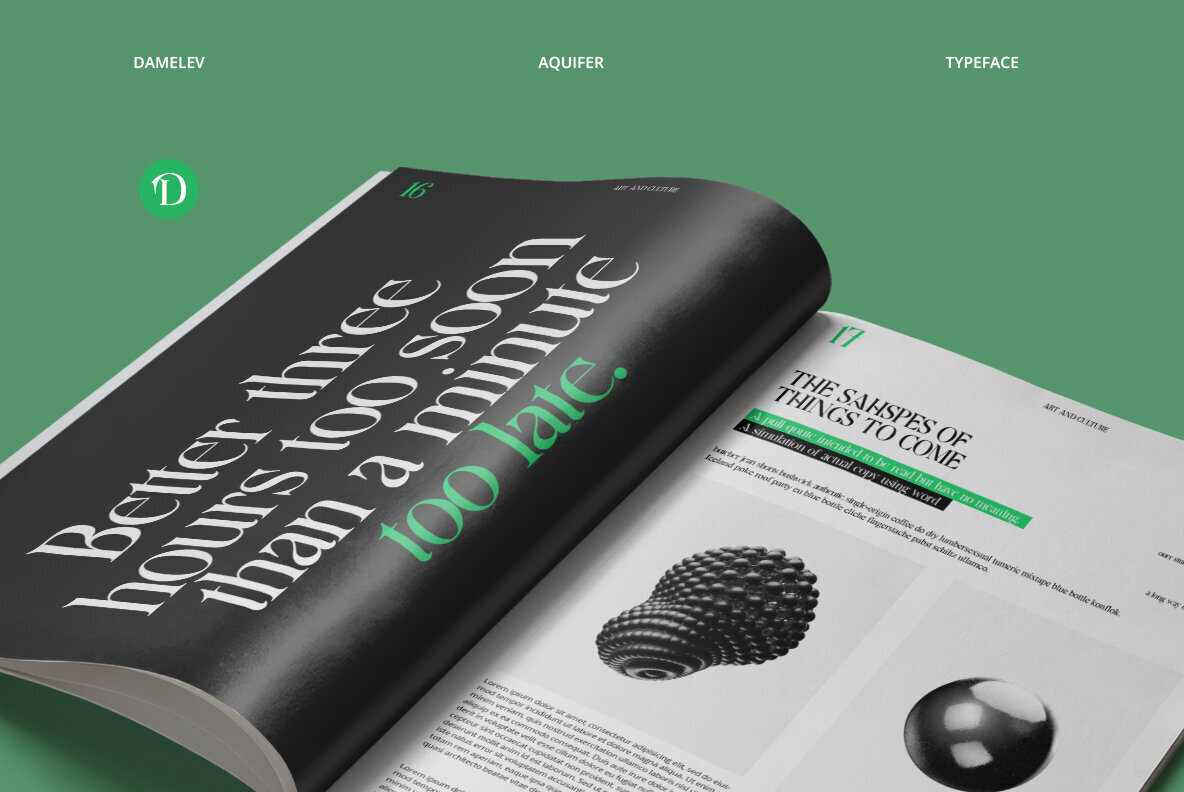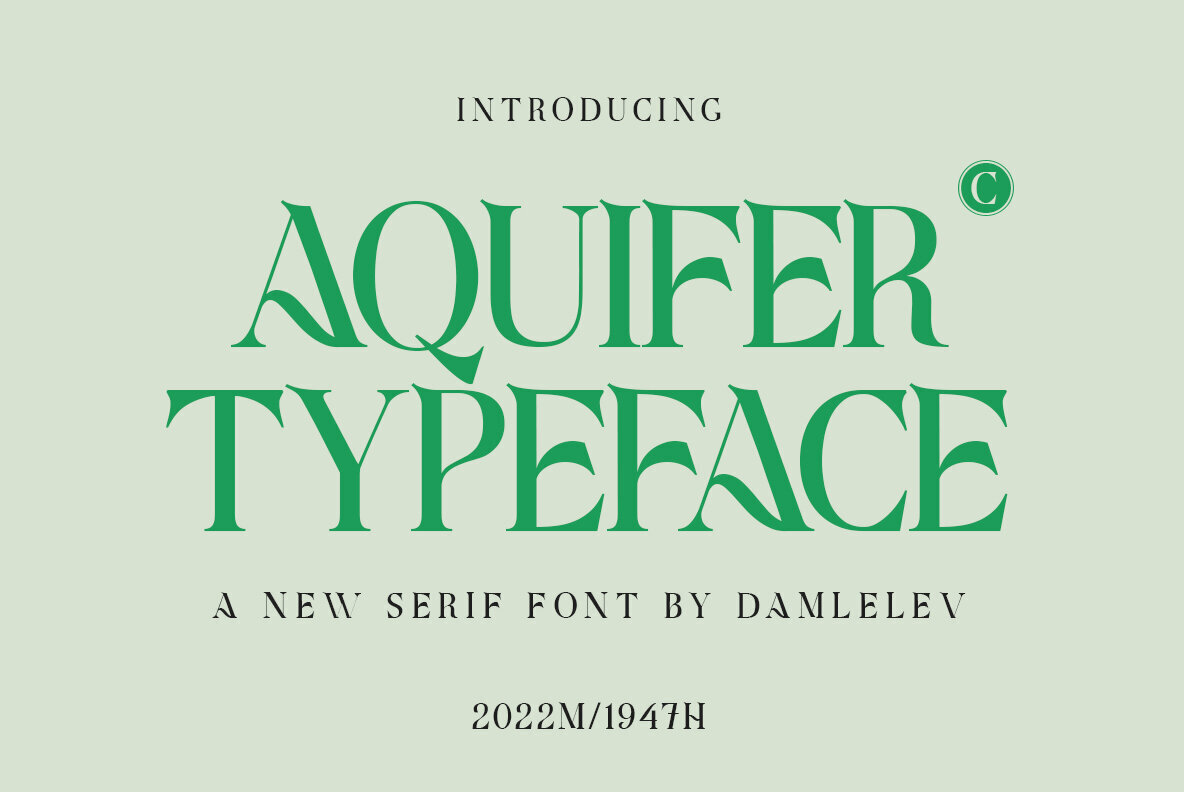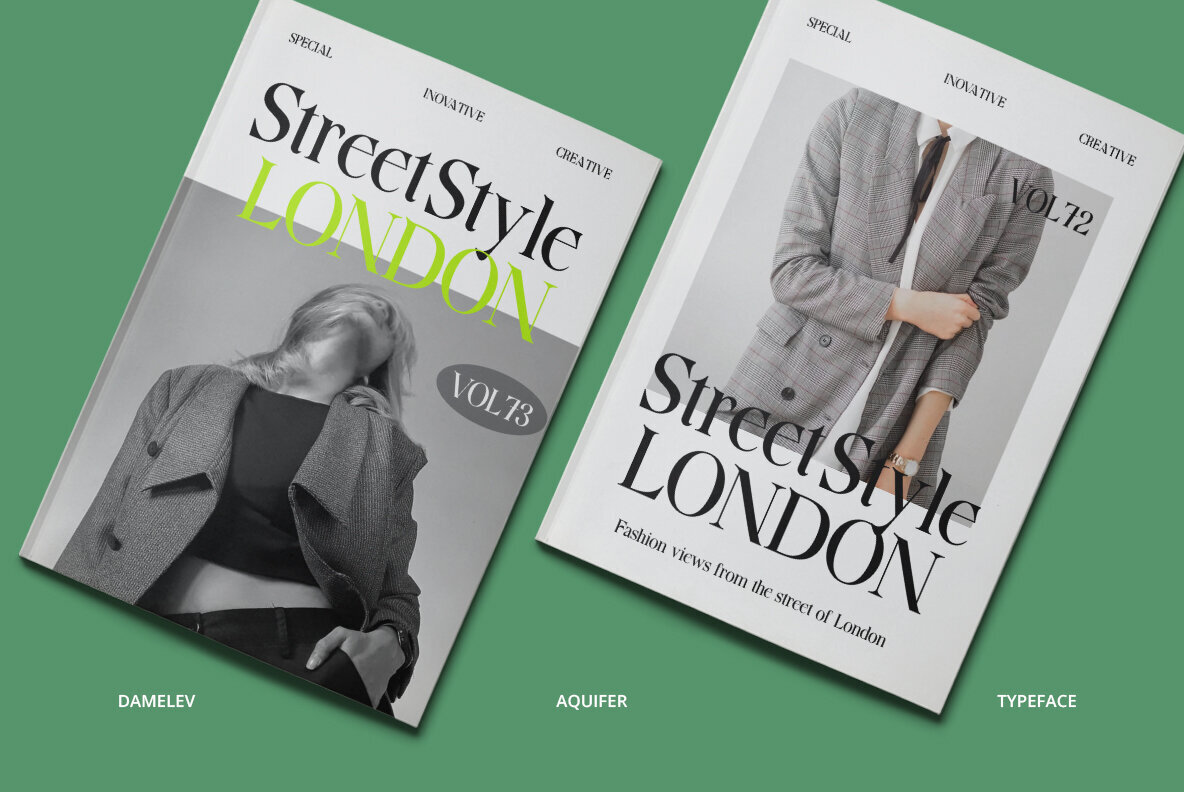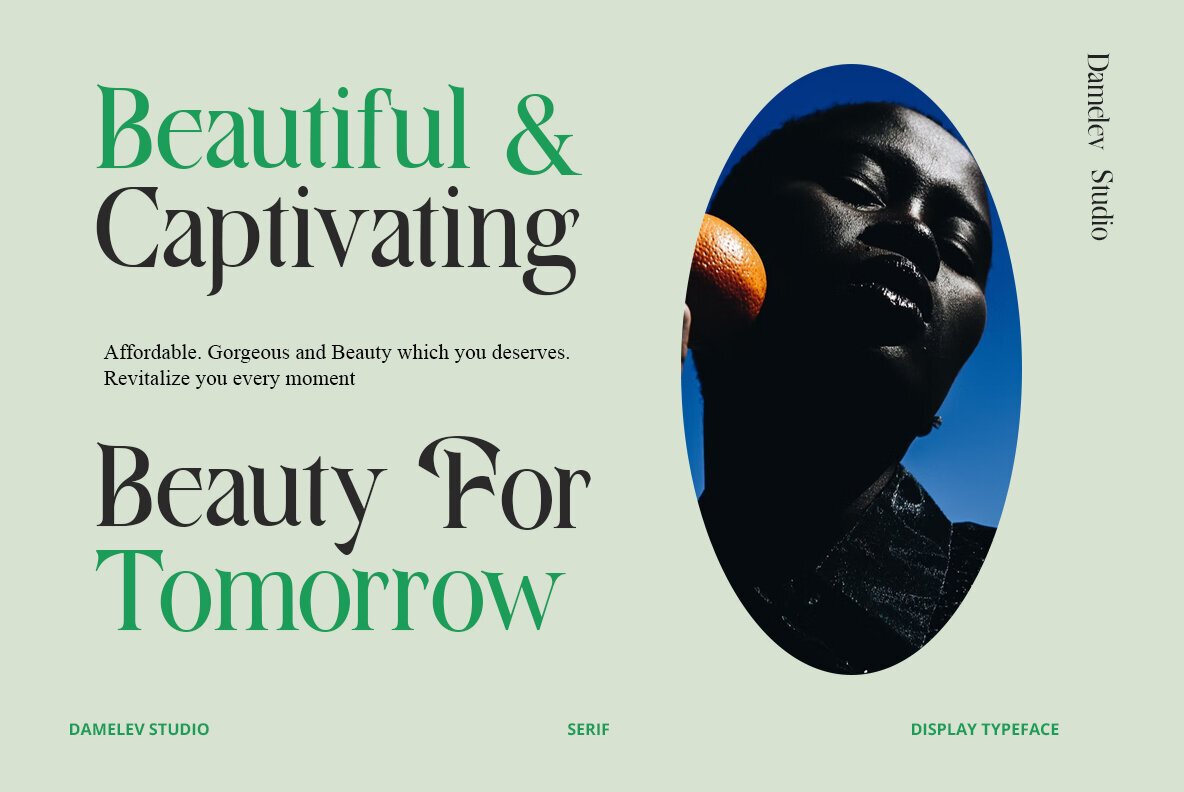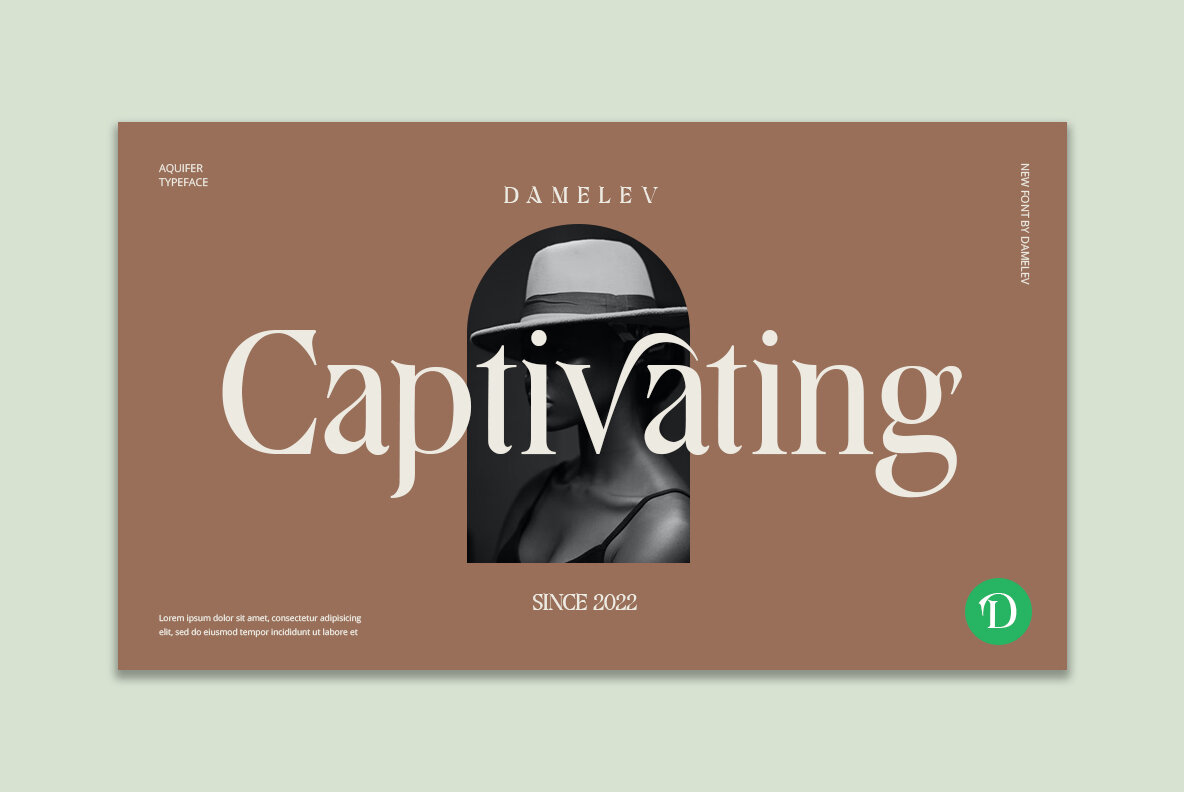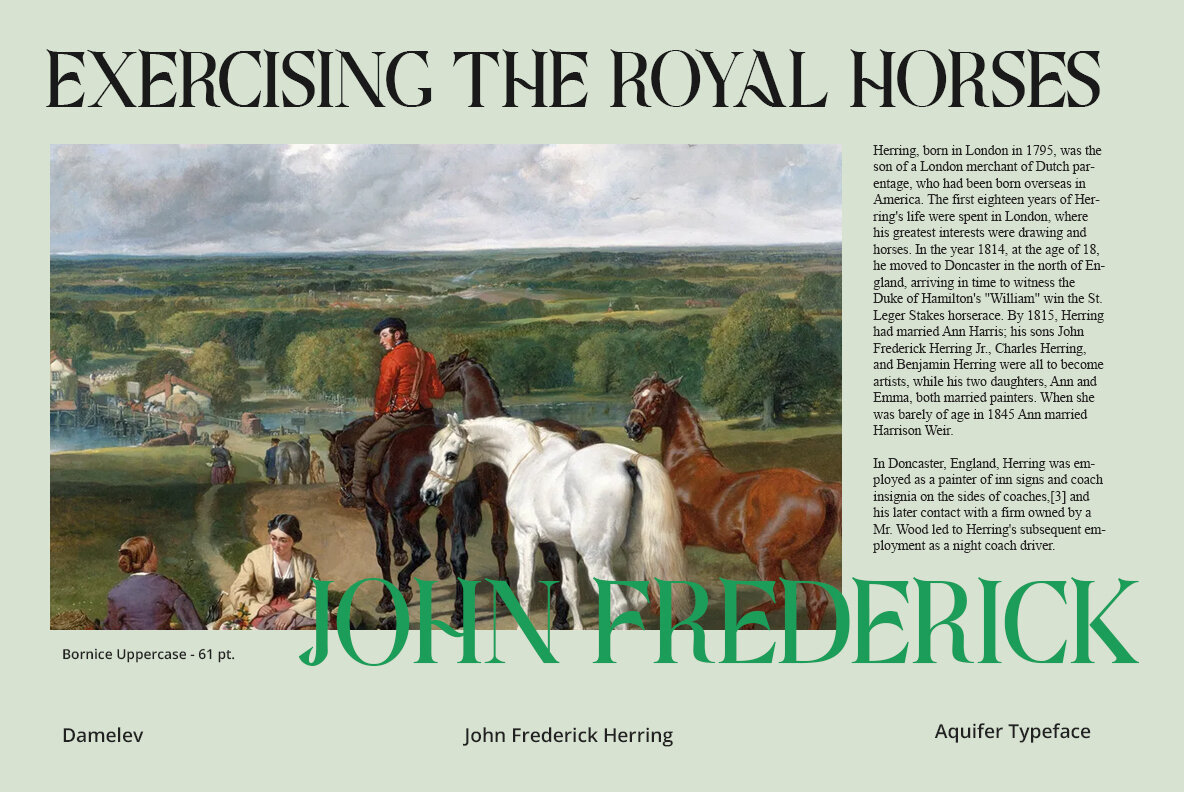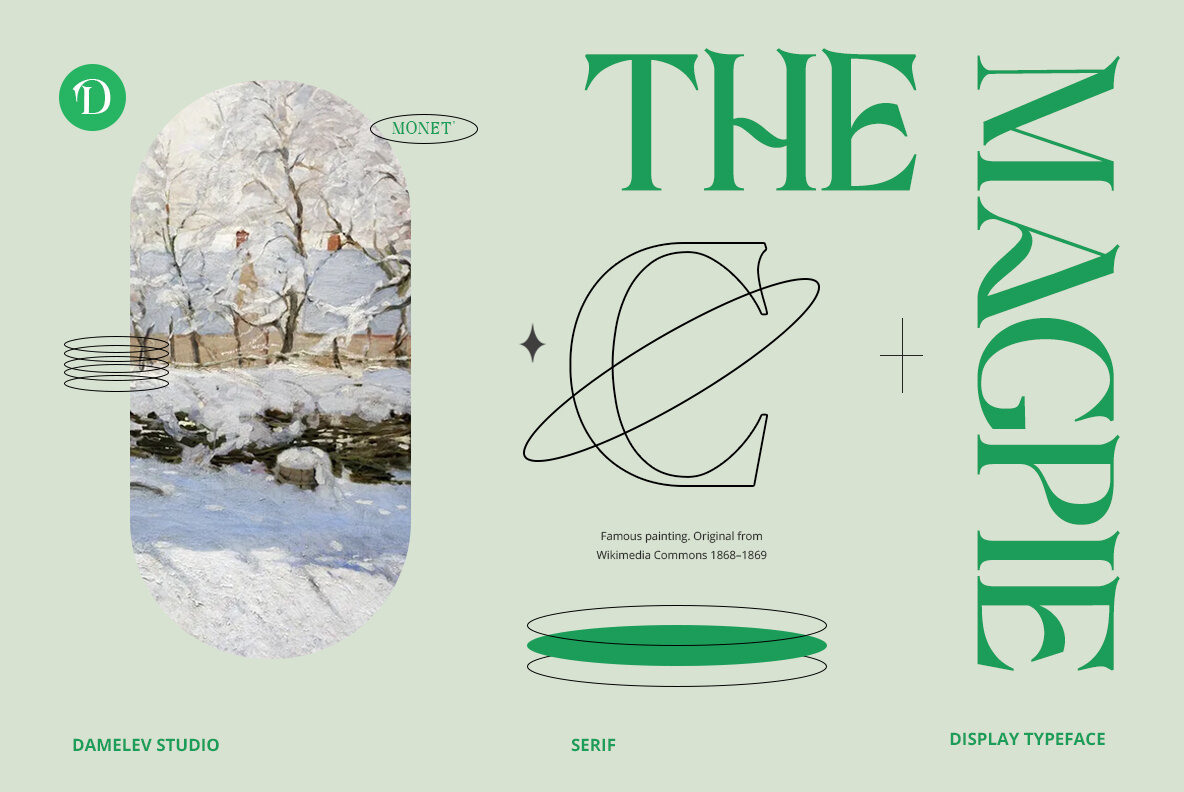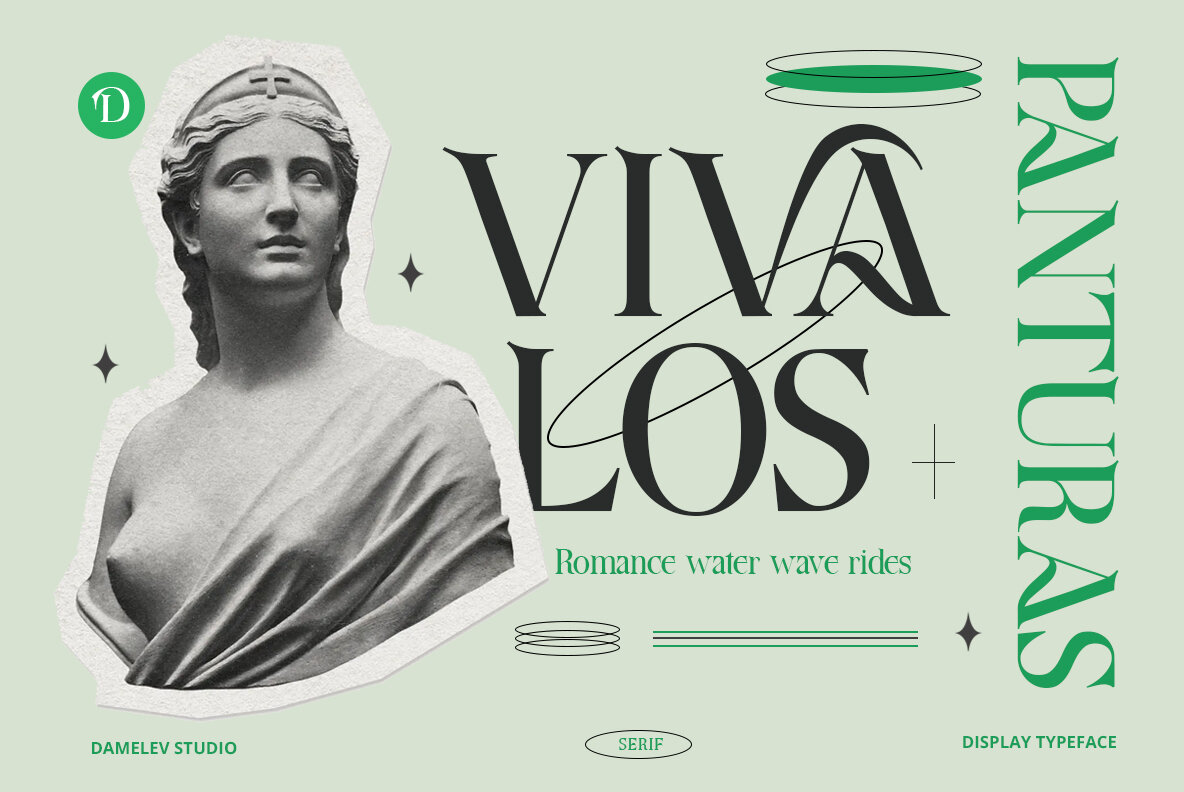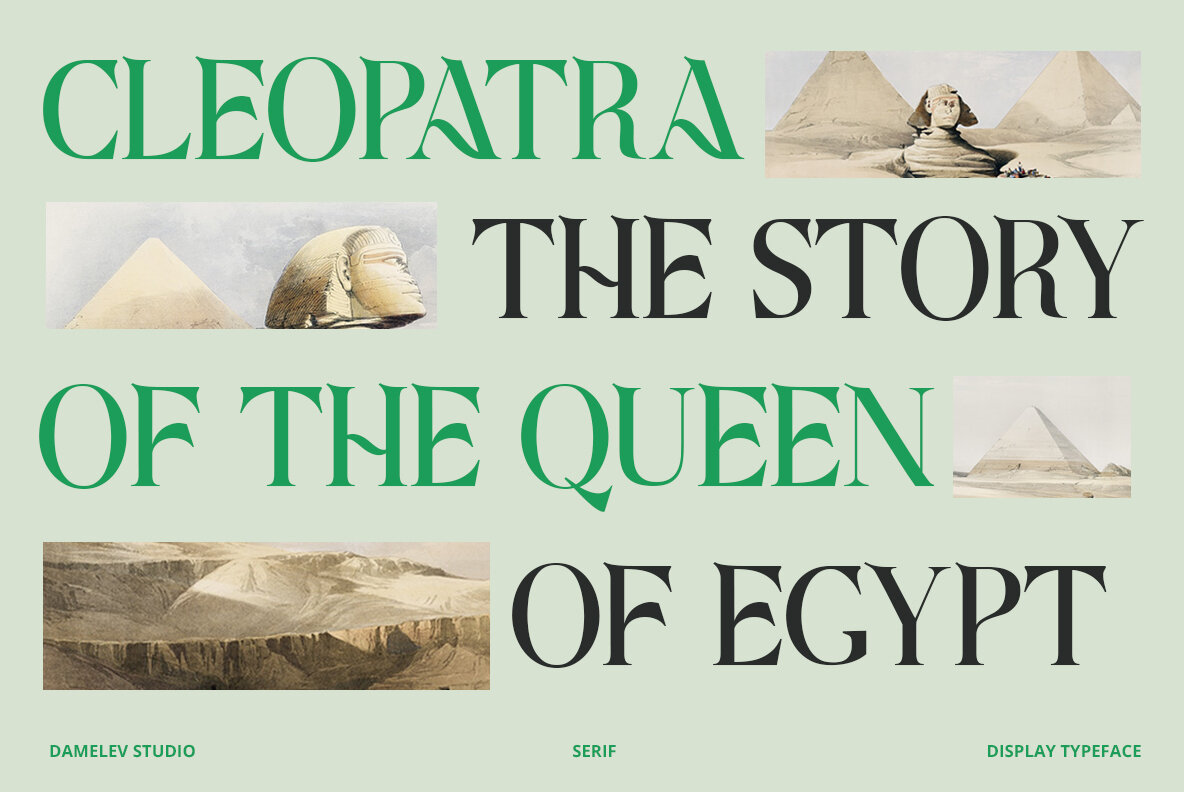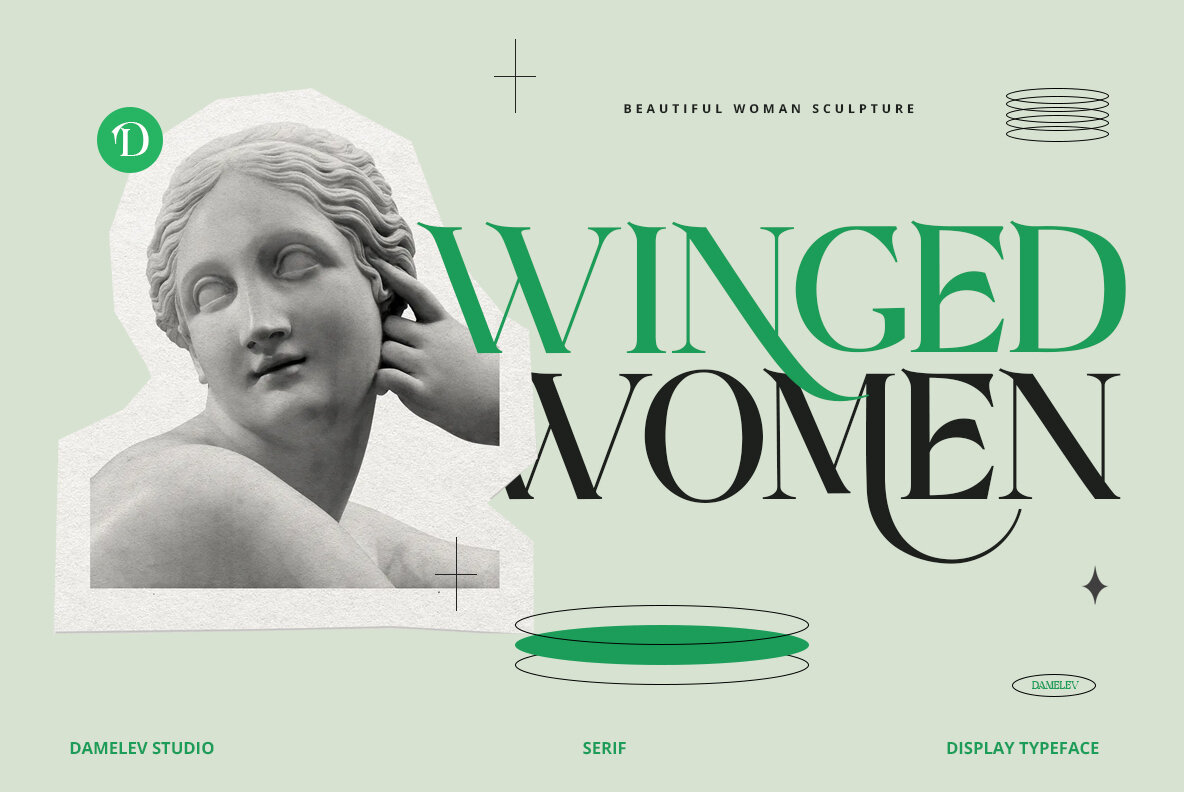
Aquifer Font
Discover the sophistication of Aquifer, a modern serif typeface that balances contemporary elegance with timeless curves. Perfect for headlines that demand attention, this typeface epitomizes luxury and glamour while reflecting a belief in progress. Aquifer's graceful lines offer a nod to vintage design, creating a sense of grandiose and confidence in any context.Aquifer: A Blend of Modern and Vintage Serif